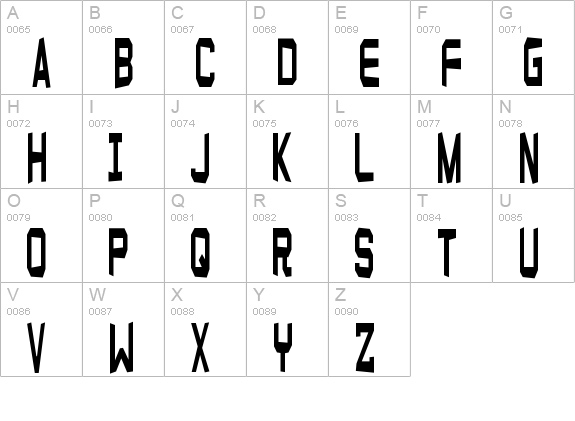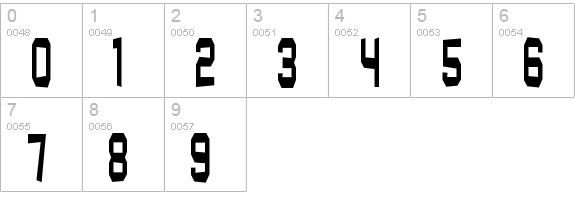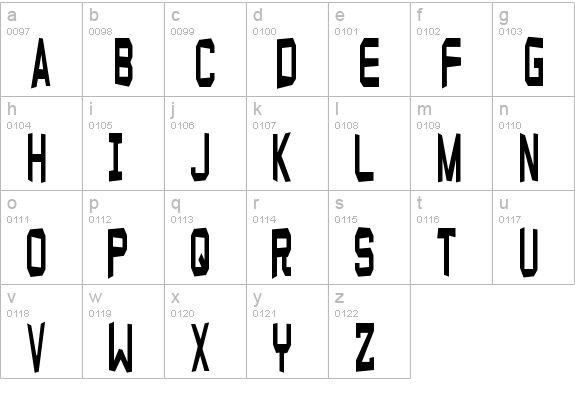
Introducing the Funny Farm Hard Font - a quirky and playful typeface that will bring a touch of whimsy to your projects. This unique font is perfect for adding a fun and lighthearted feel to any design, whether it's for posters, greeting cards, or social media graphics. The Funny Farm Hard Font features bold, exaggerated letterforms with a hand-drawn aesthetic that is sure to make your text stand out. The best part? This delightful font is available for free download at FontsMarket.com! Simply visit the website and get your hands on this charming typeface to add a touch of humor and personality to your designs. Whether you're a seasoned designer or just looking to add some fun to your projects, the Funny Farm Hard Font is sure to be a valuable addition to your font collection. Download it today and let your creativity run wild with this playful and eye-catching typeface.